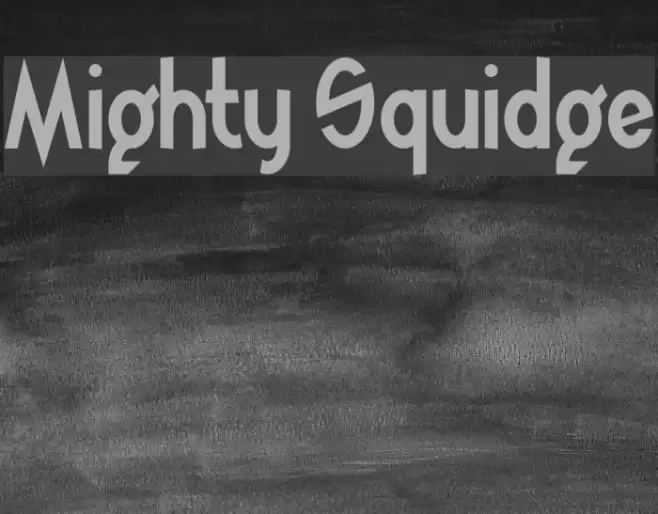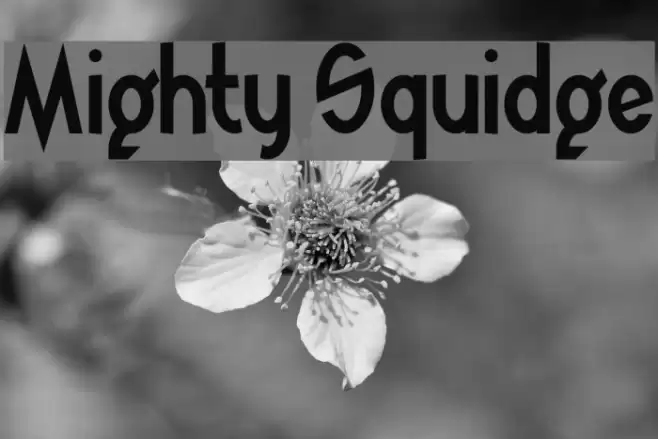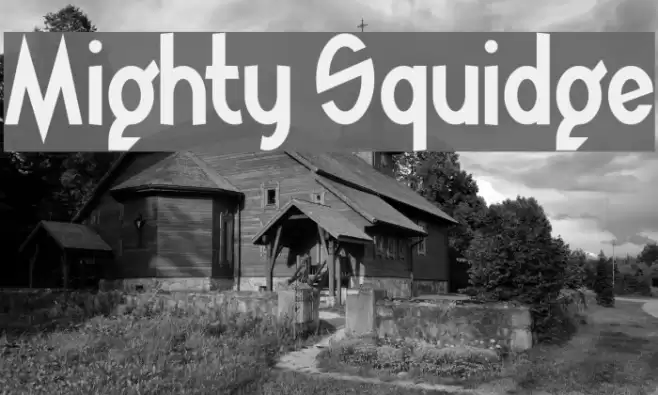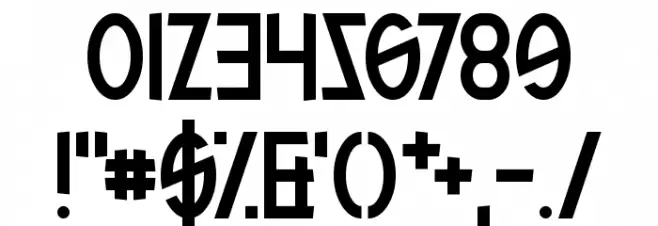
Mighty Squidge Font
Mighty Squidge Description
This font features a bold and geometric style, characterized by sharp angles and clean lines. The uppercase letters are particularly striking, with a strong presence and unique design elements, such as the diagonal slash through the 'S'. The lowercase letters maintain a consistent style, offering a modern and cohesive look. Numbers and special characters are designed to match the boldness and geometric nature of the alphabet, making them stand out. The overall appearance is both contemporary and eye-catching, suitable for making a strong visual impact.
A bold, geometric font with sharp angles and a modern style from Uncategorized fonts.
- Proposed Projects: Ideal for branding, posters, headlines, and any design requiring a bold statement.